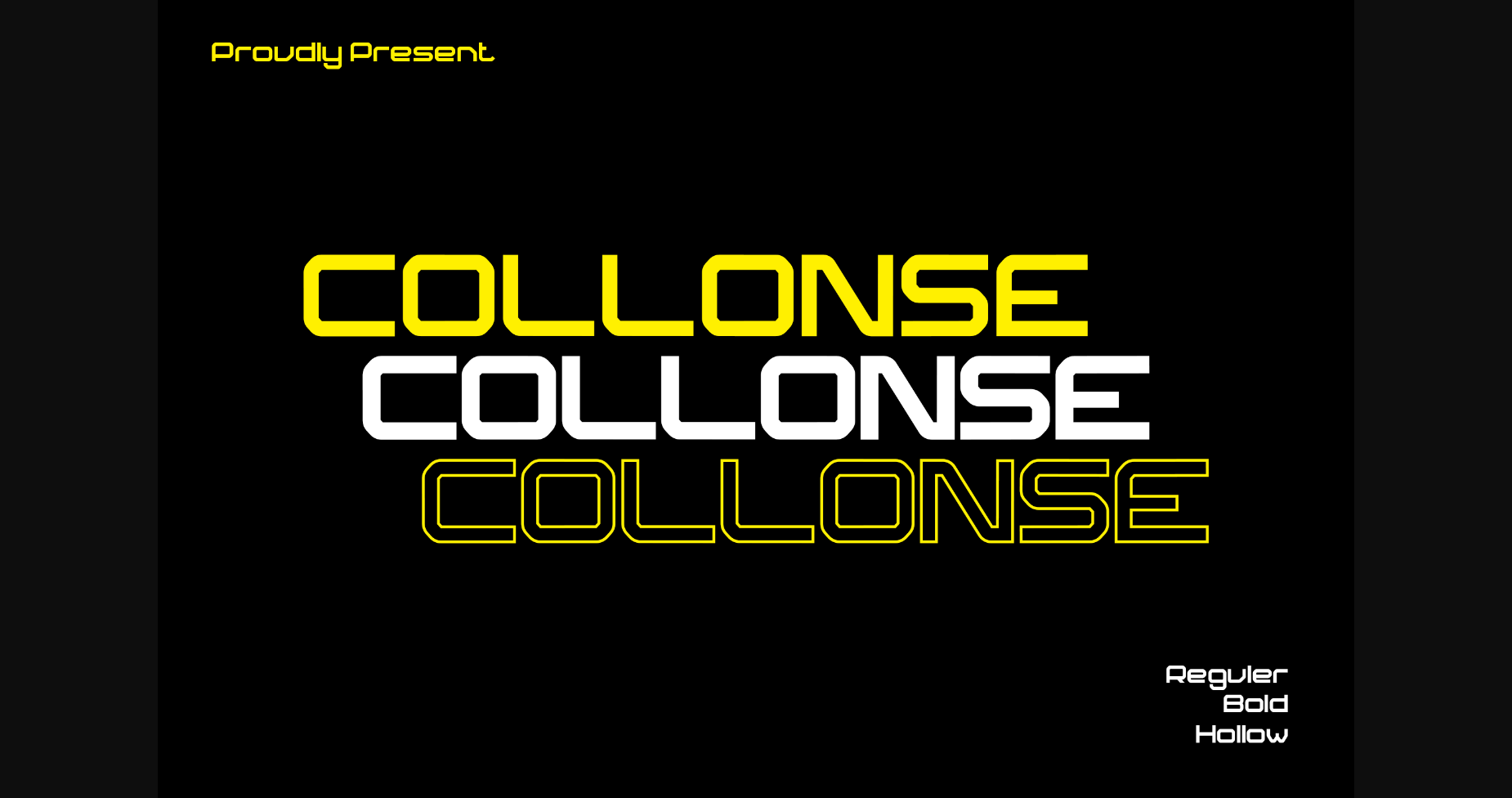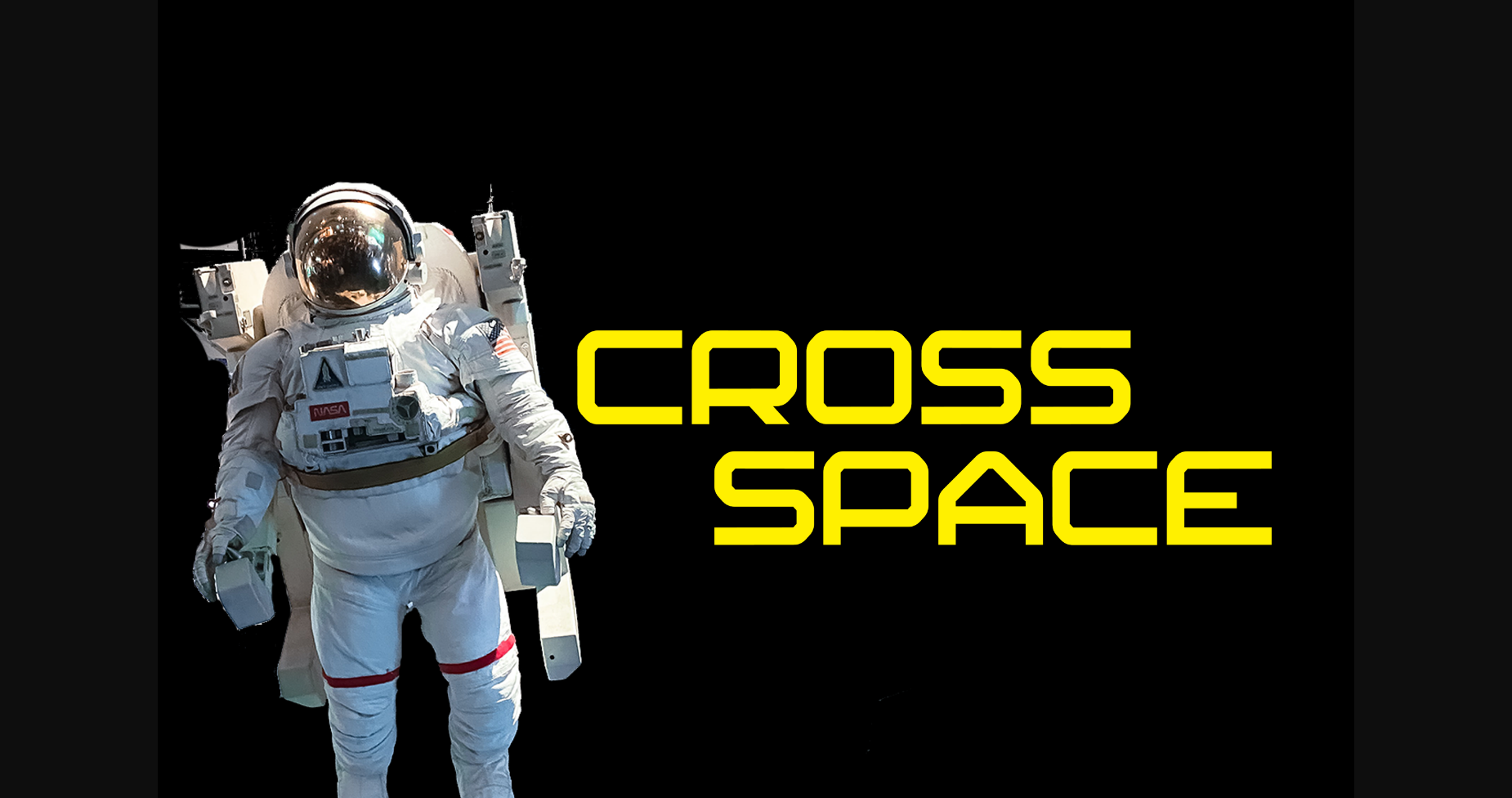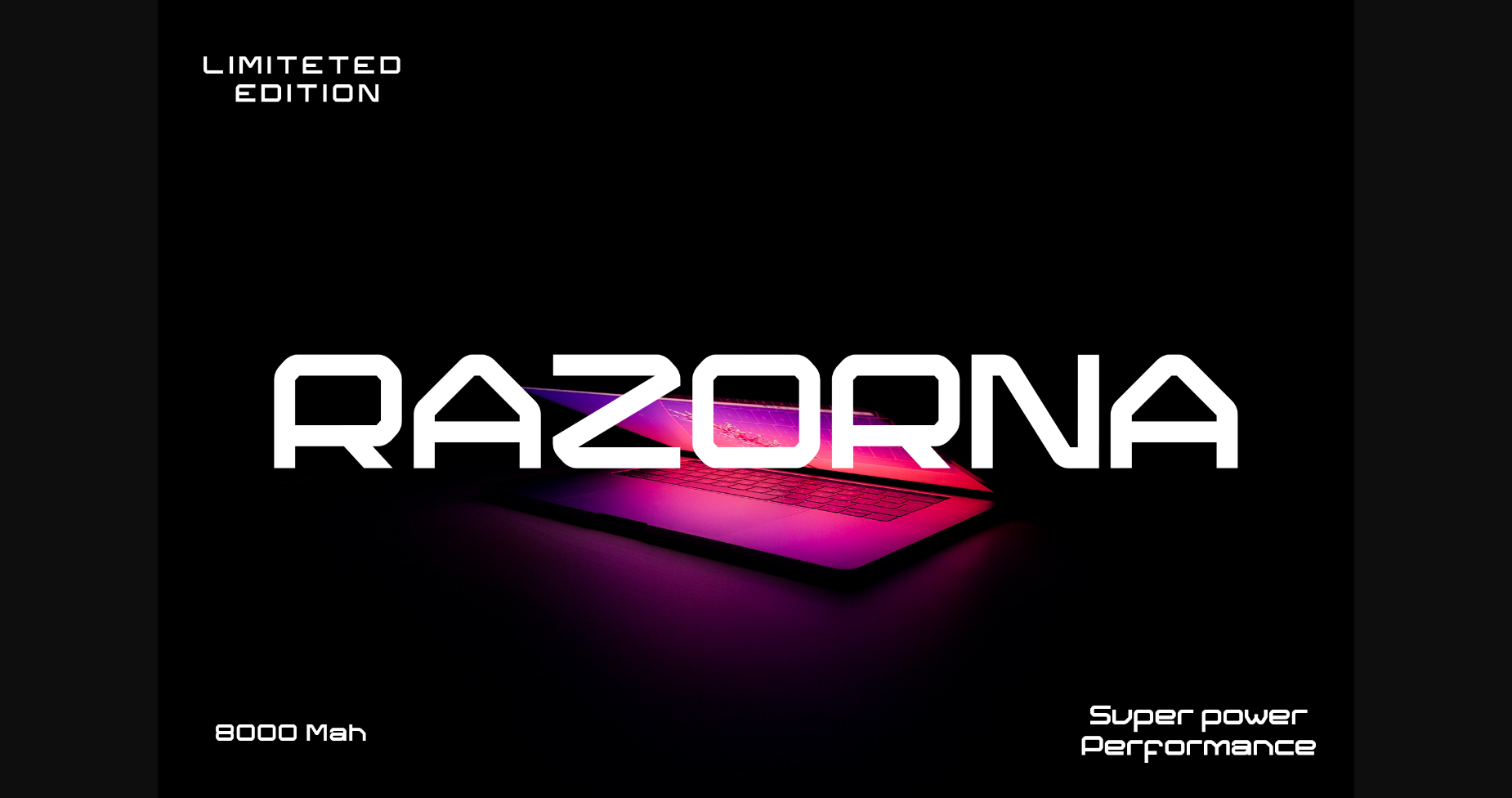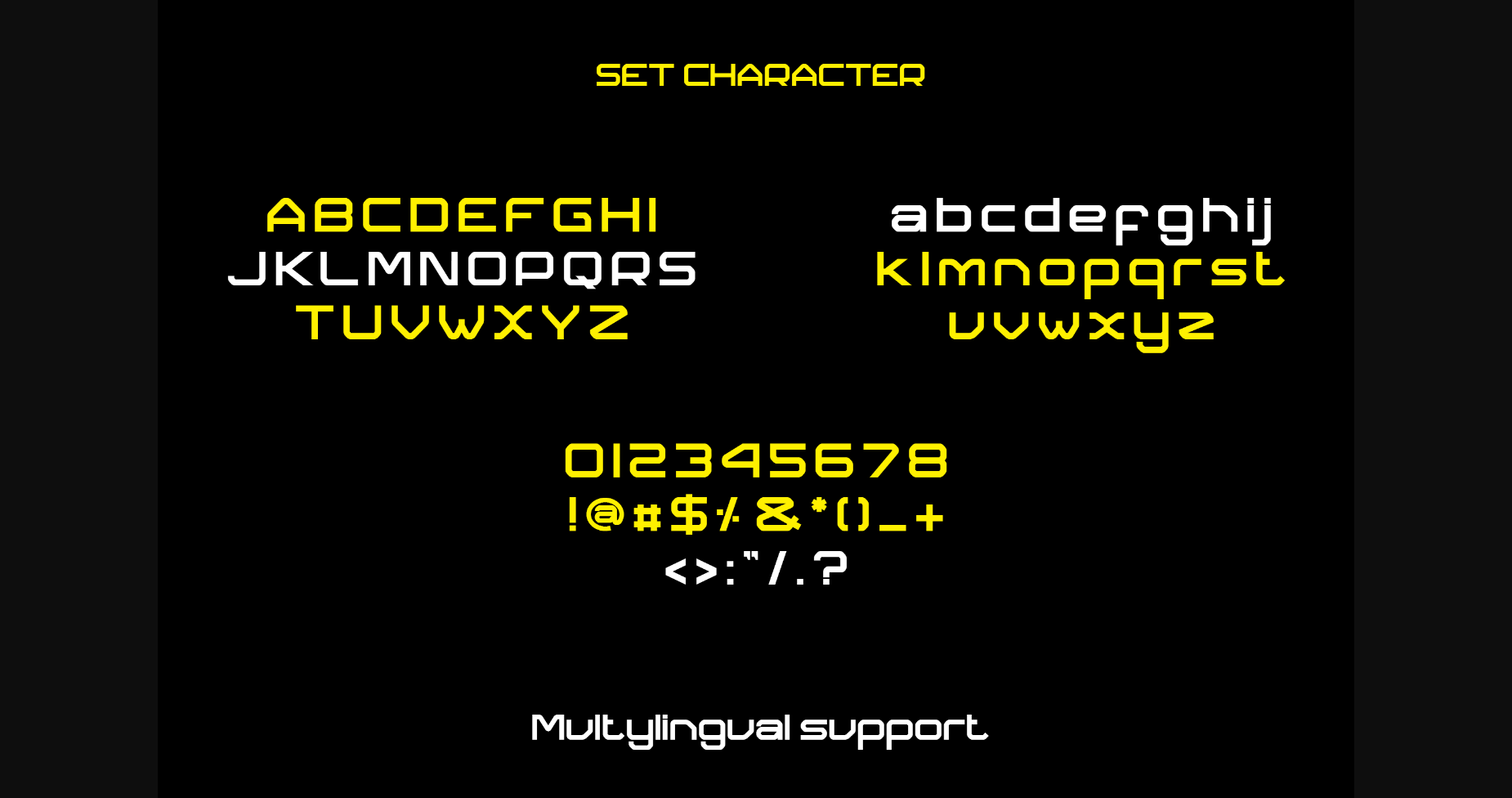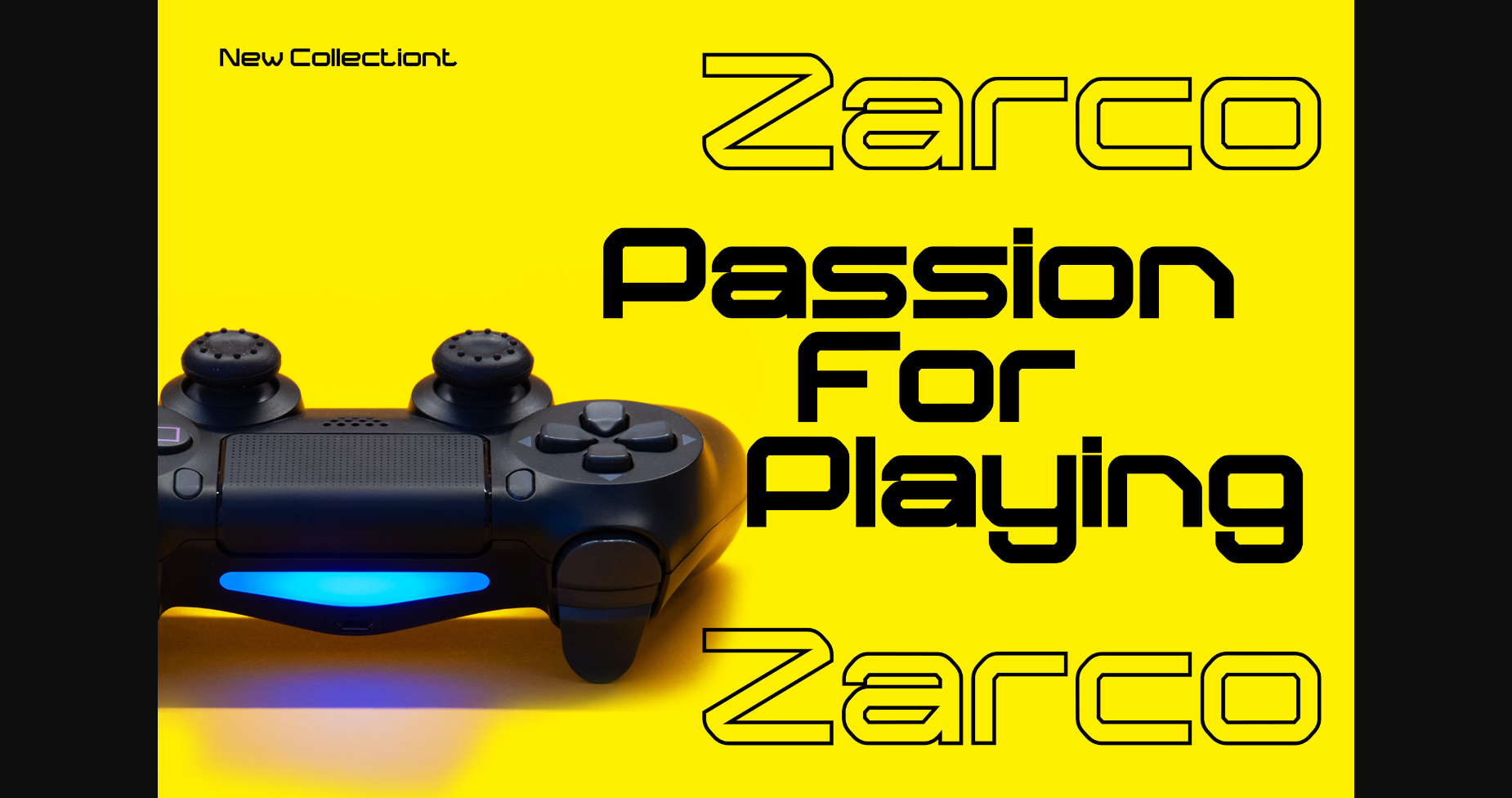
Collonse Font
About Collonse Font
Collonse is a unique and assertive sans serif font that will take your products to the highest levels! It is very nice used on fashion magazines, logos, landing pages, flyers, photography, and so much more.